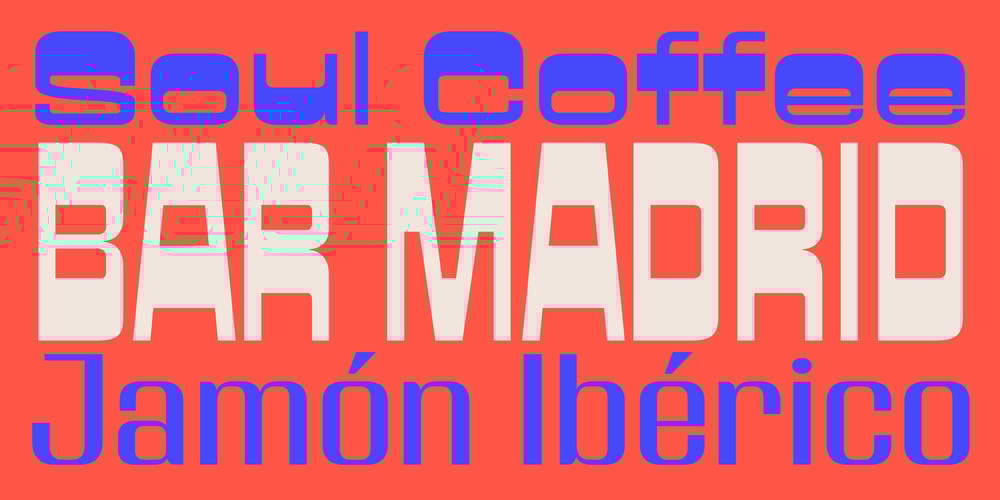
Varietta Font Family was designed by Alejandro Paul and published by Sudtipos. Varietta contains 109 styles and family package options. Varietta is the result of my fascination with photographing the type designs of some marquees in Spanish markets. In them you can see many letter designs with reversed contrast and in different widths, probably based on the possibilities of photocomposition. At the same time I was working on the expansion of the Hastile typeface designed by Alessandro Butti for the Nebiolo foundry in Italy in the late 1930s, of which I had not seen any digitization. As I am not a fan of perfect revivals, I thought it could be interesting to connect Spain and Italy in a single typeface. The first step was to expand Butti’s design to 27 styles, ranging from thin condensed to black expanded. To look for the Spanish connection and its characteristic inverse contrast I took advantage of the current technology that allows variable typefaces with many axes. From this, three scenarios of horizontal contrast were incorporated (top, bottom and mixed) which allows infinite possibilities of use. The final result is a collection of 108 static typefaces or a single variable file.